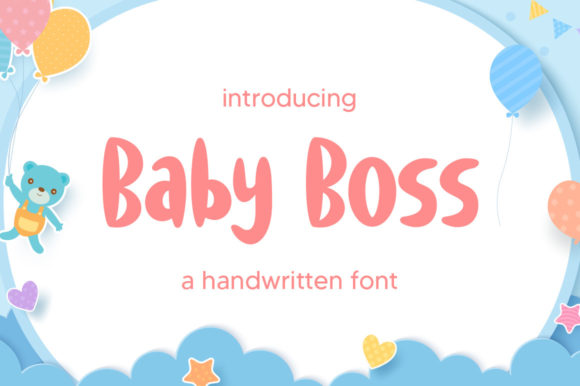
Journey into a world of playful creativity with Baby Boss Font, the ultimate display font for captivating designs. This bold and contemporary typeface is a masterpiece crafted by Nirmala Creative, renowned for their exceptional fonts that ignite imagination.
Baby Boss Font is not just a collection of letters; it's an invitation to unleash your inner child, to embrace the joy and wonder of childhood. With its playful curves and dynamic strokes, this font breathes life into your creative endeavors, transforming them into captivating works of art.
If you seek a font that speaks to the innocent charm of babyhood, Baby Boss Font is your perfect companion. Its playful demeanor and cheerful spirit make it an ideal choice for baby shower invitations, nursery décor, and children's books. Its bold presence commands attention, ensuring your designs stand out from the ordinary.
Baby Boss Font is a versatile performer, equally at home in the digital realm as it is in print. Whether you're a seasoned designer or a creative enthusiast, this font empowers you to create captivating logos, eye-catching social media posts, and stunning website designs. Its versatility knows no bounds, making it a must-have in the toolkit of any creative professional.
With Baby Boss Font, you'll never run out of inspiration. Its playful nature sparks imagination, igniting a cascade of creative ideas. It's the perfect font for whimsical illustrations, vibrant posters, and enchanting branding designs. Let your creativity soar and watch as your designs come alive with the magic of Baby Boss Font.